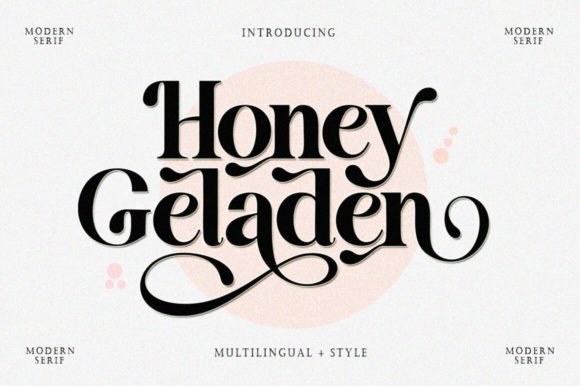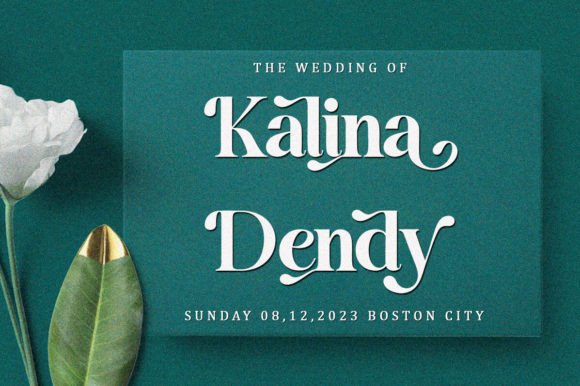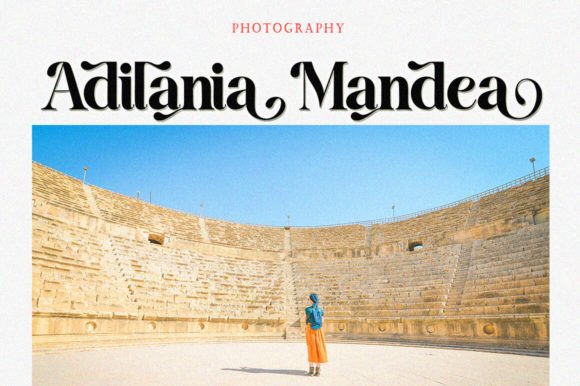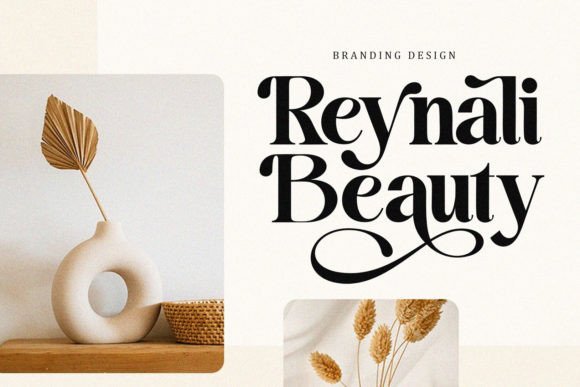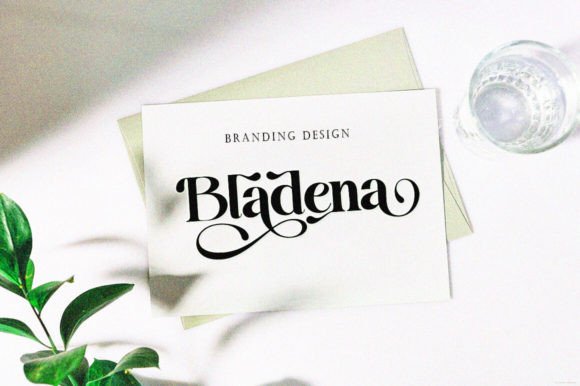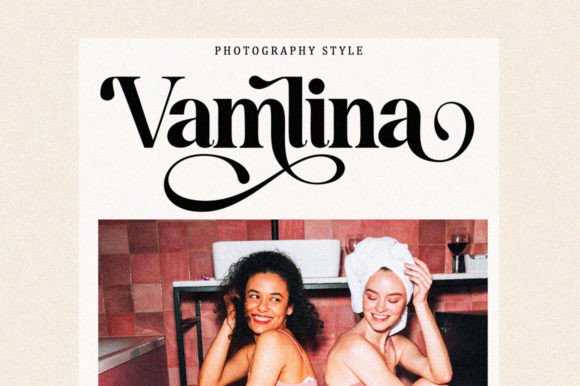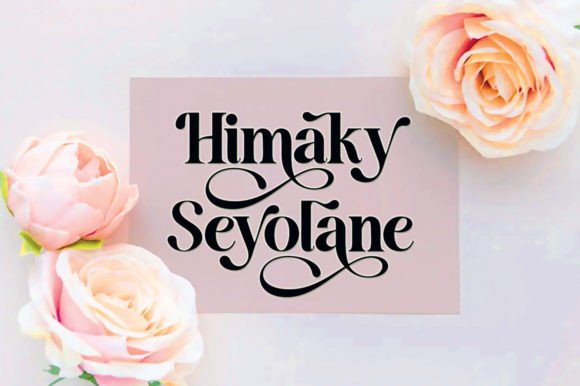
Honey Geladen Font
Honey Geladen is a beautiful, versatile serif font. It is characterized by a modern and luxurious style in a classic form, but also a friendly and playful style in bold. Honey Geladen has glyphs to give crafters more options in designing. This modern style will make a design appear more classy, elegant, unique and edgy.